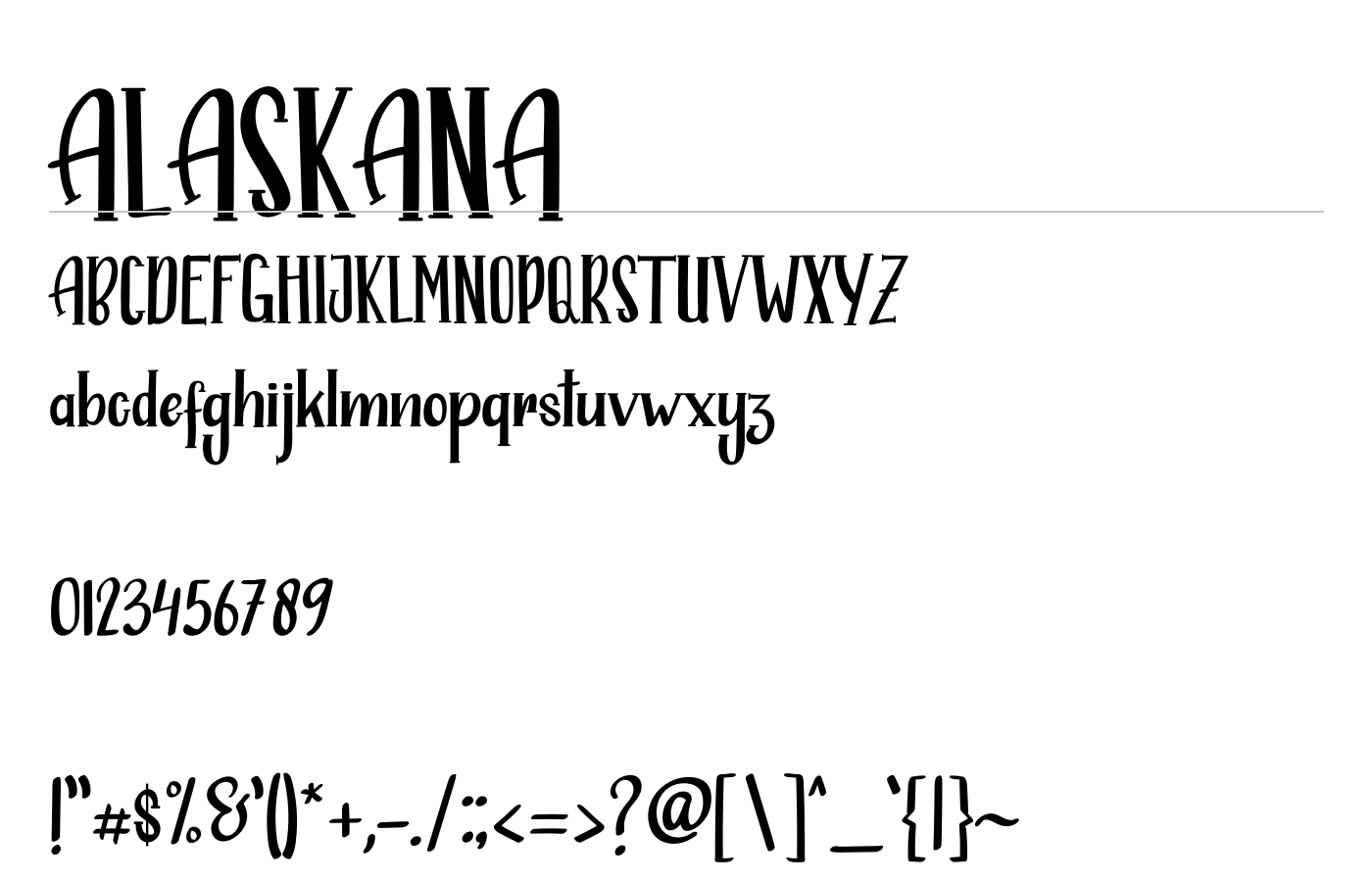
Alaskana is a unique serif font with a tall, narrow structure and playful, hand-crafted charm. Its slightly whimsical letterforms feature subtle stroke contrasts and delicate serifs that give it an artistic, vintage feel, making it ideal for creative branding, posters, and editorial headlines. This font’s distinctive personality brings a touch of elegance combined with casual flair, perfect for projects seeking both style and originality.
ALASKANA Font
About ALASKANA Font